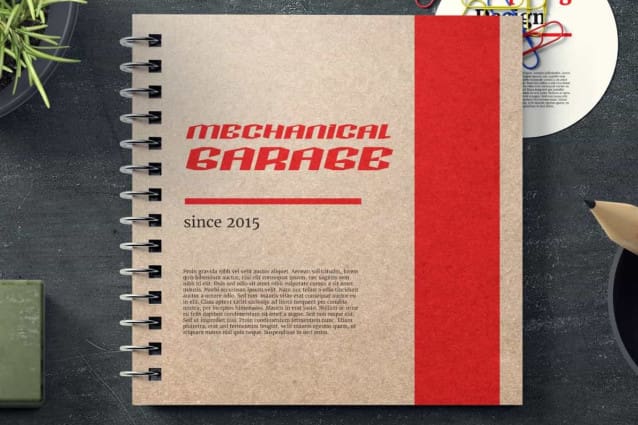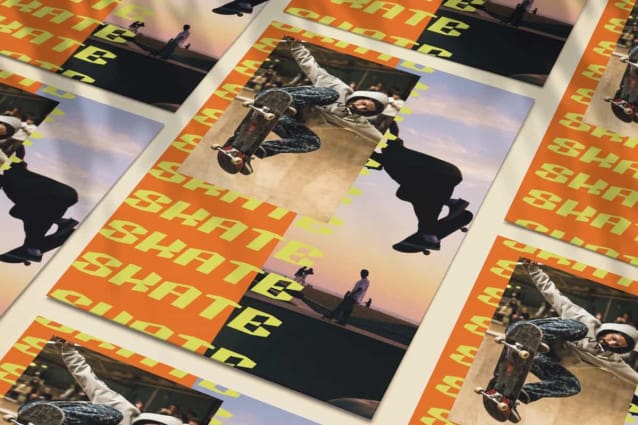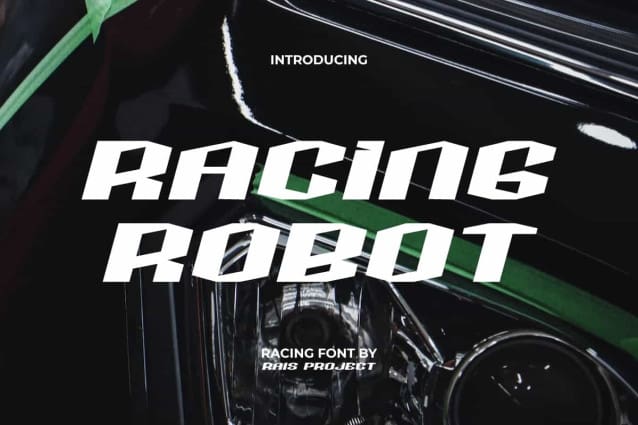
Racing Robot Font
Racing Robot Font is a bold modern sporty racing display racing font by RaisProject. Even though it has a boxy and precise letter shape, this font still gives a unique impression that is still easy to read. It will be good for any designs, such as advertisement, brand image, custom design, invitation, label, marketing material, menu, poster, product packaging, quotes, signage, website page, and more!
Racing Robot Font includes a full set of ALL CAPS for Uppercase and Lowercase Letters, Numerals, and large range of Punctuation. This impressive font with a racing vibe will be suitable for various industries, such as automotive, cafes, event or festival, fashion, game, printing, publishing, photography, sports, etc.